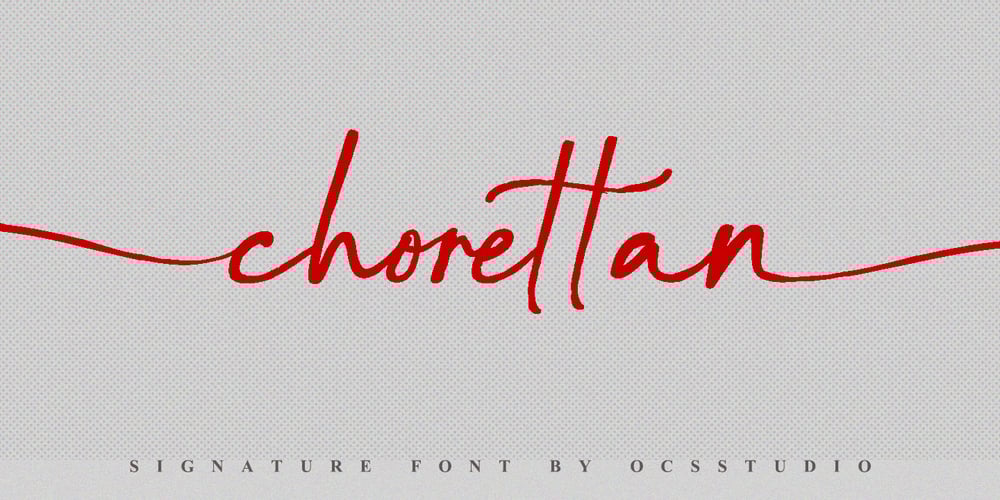
Chorettan Font Family was designed by Oki Candra Setiawan and published by OCSstudio. Chorettan contains 2 styles and family package options. Chorettan is a hand-written script. This is perfect for branding, wedding invitations, cards, social media, or maybe for your logo products, and also websites.